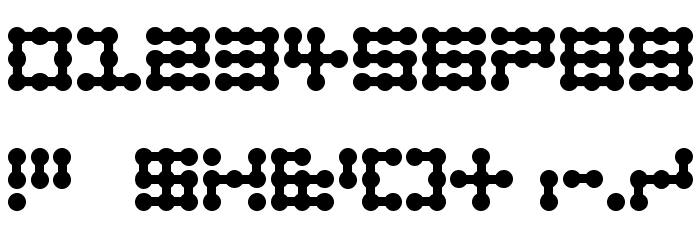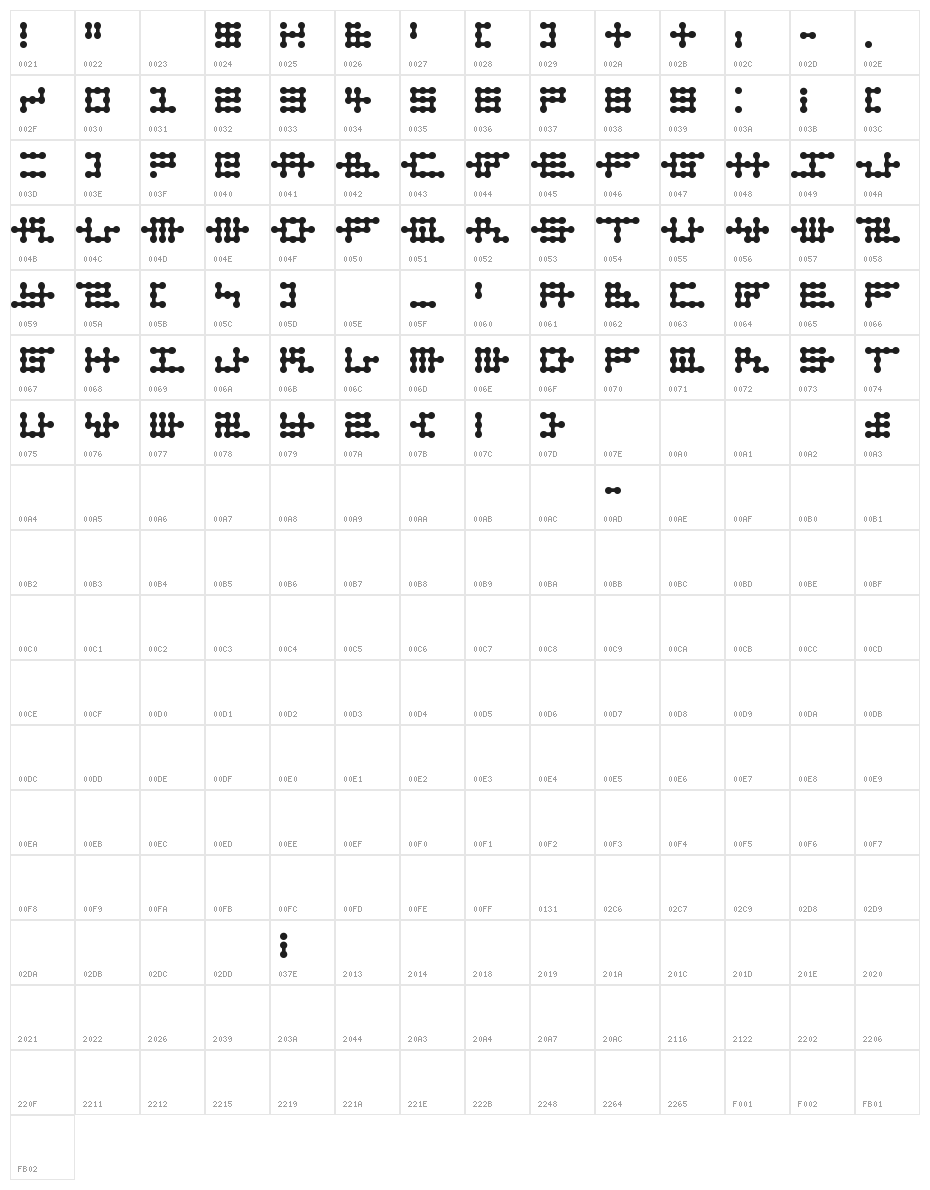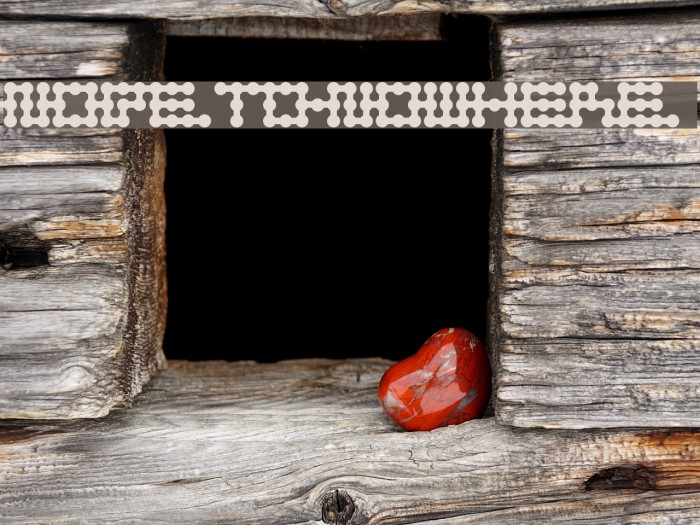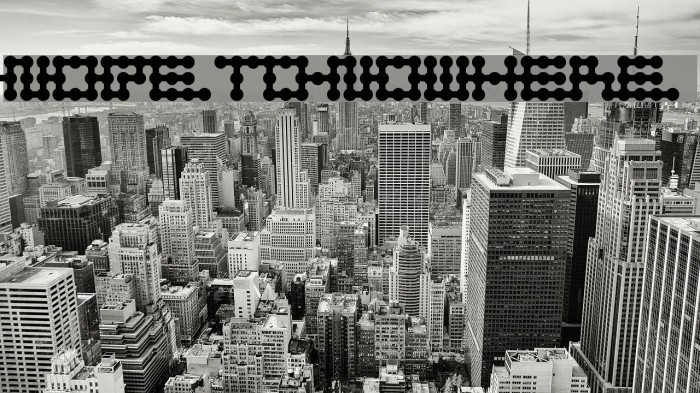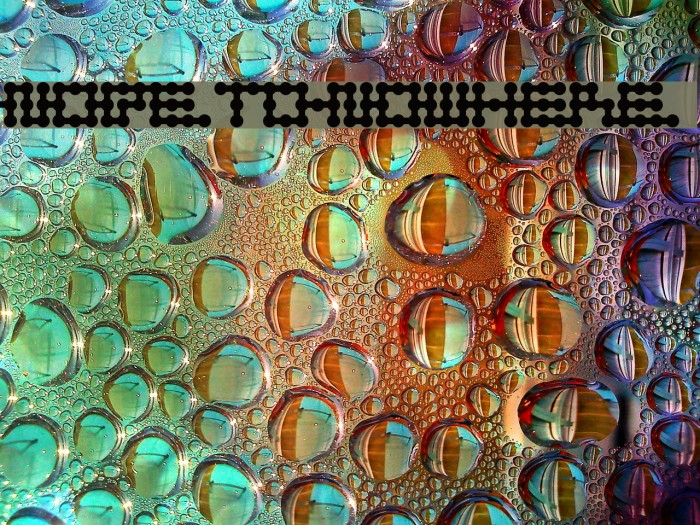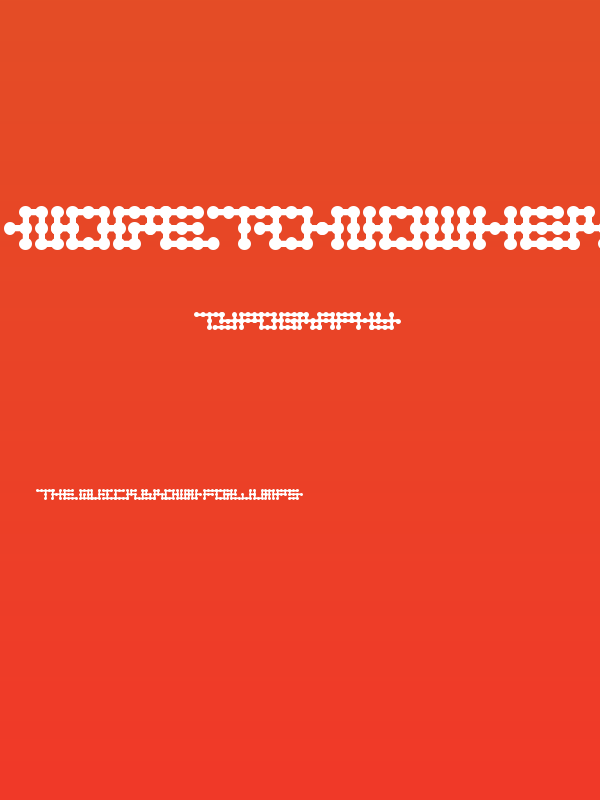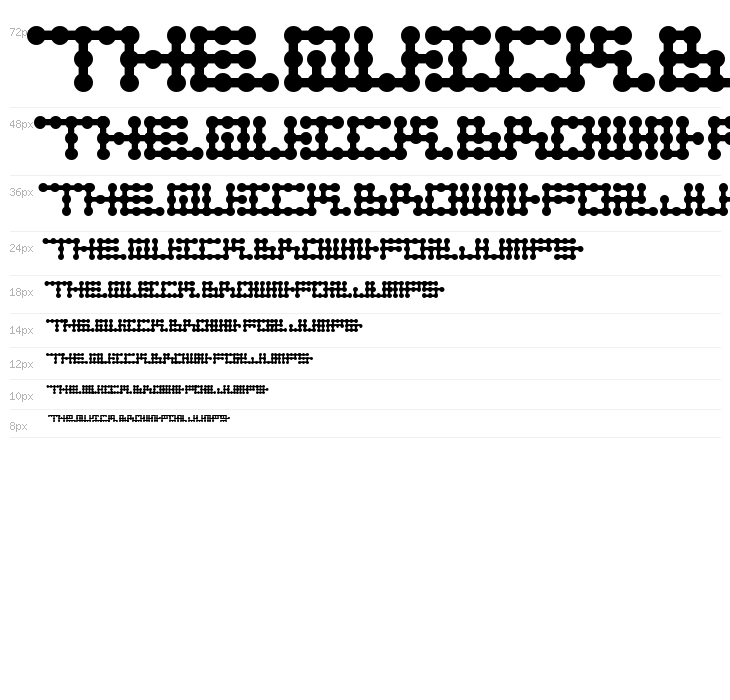
Node to Nowhere Font
Node to Nowhere Description
This font features a unique and playful design, characterized by its dot-based structure that forms each letter and number. The characters are composed of interconnected circular nodes, creating a futuristic and digital appearance. The style is bold and eye-catching, making it suitable for creative and modern projects. The font maintains a consistent weight throughout, with no variation in stroke thickness, resulting in a uniform look. The spacing between characters is relatively tight, enhancing its compact and cohesive feel. This font's distinct and decorative style makes it ideal for projects that require a standout visual element.
| Overall Style | Futuristic, Decorative |
| Use Case | Logos, Posters, Headlines |
| Proposed Projects | Ideal for digital art, tech-themed posters, modern branding, and creative advertising. |